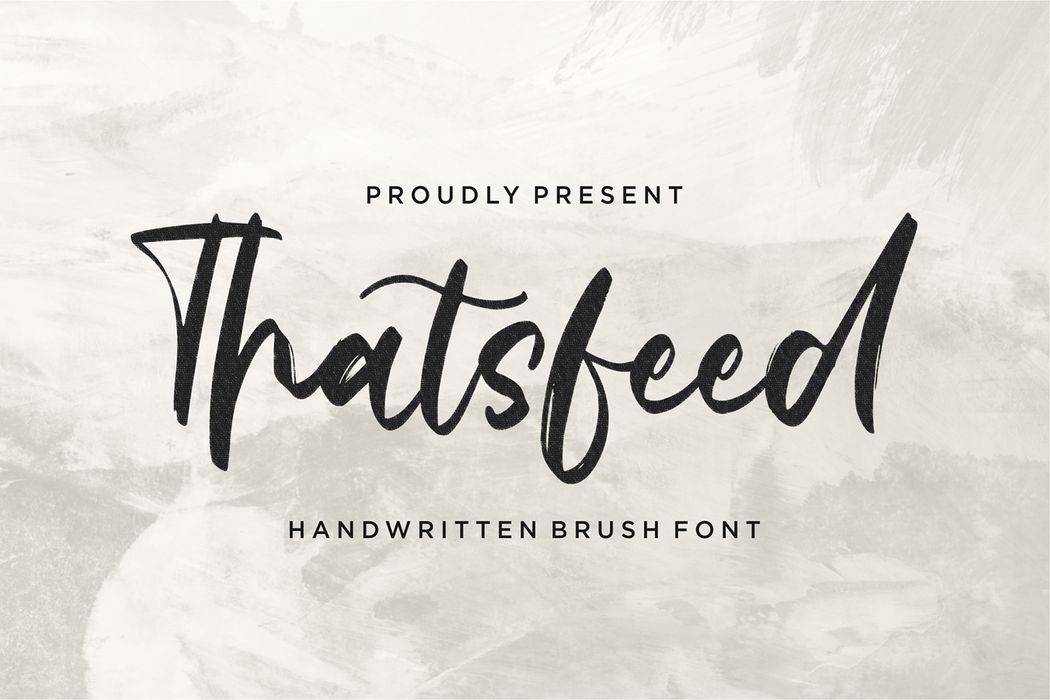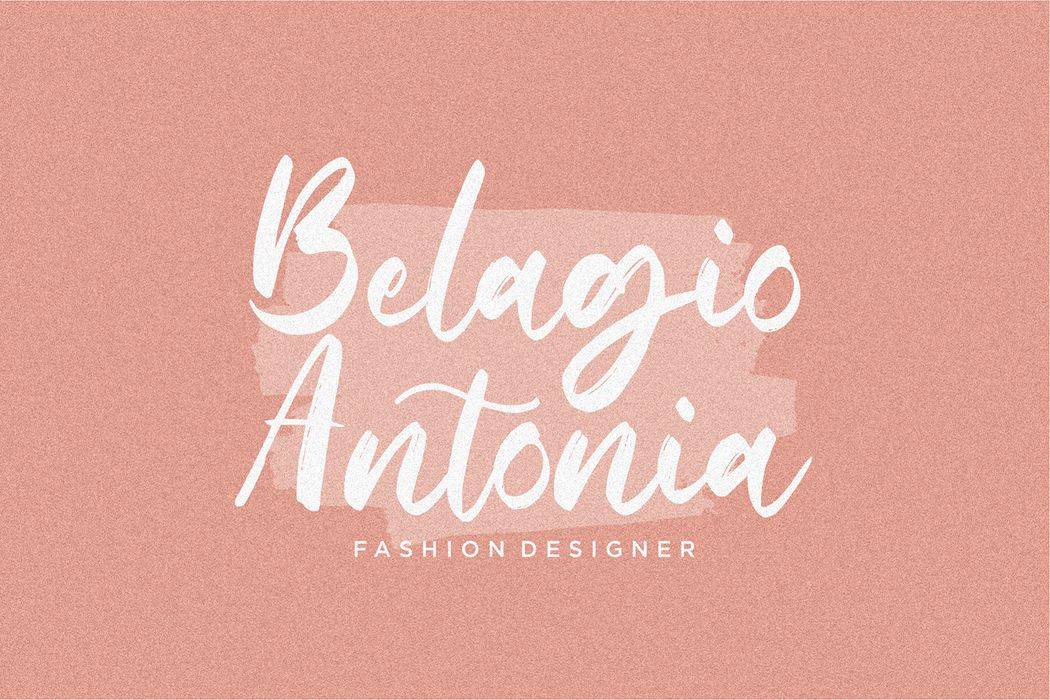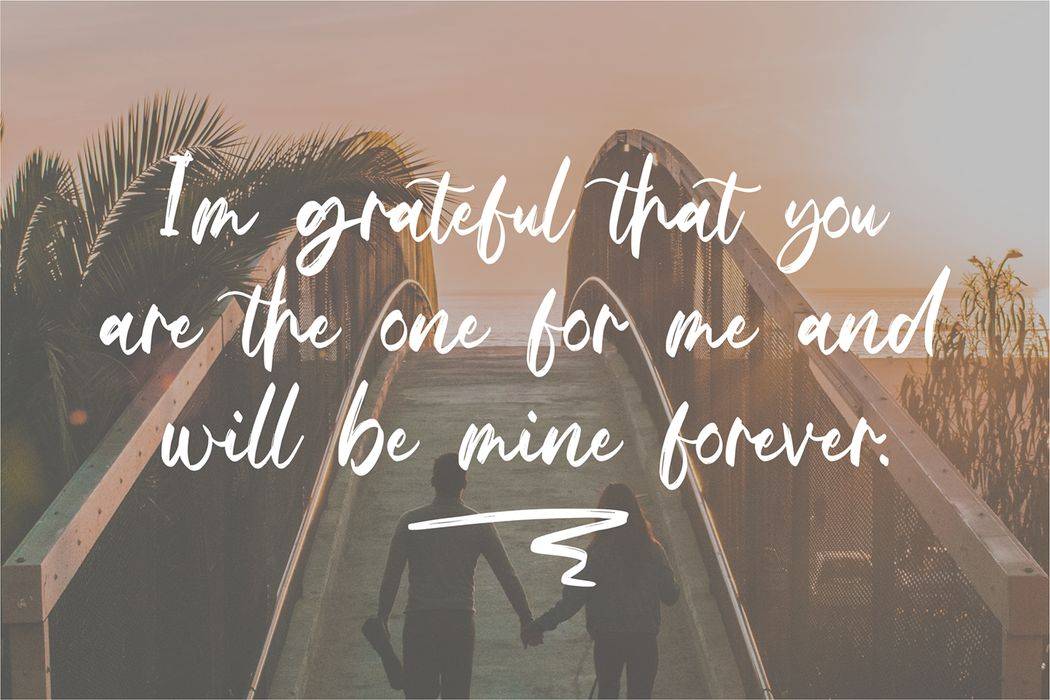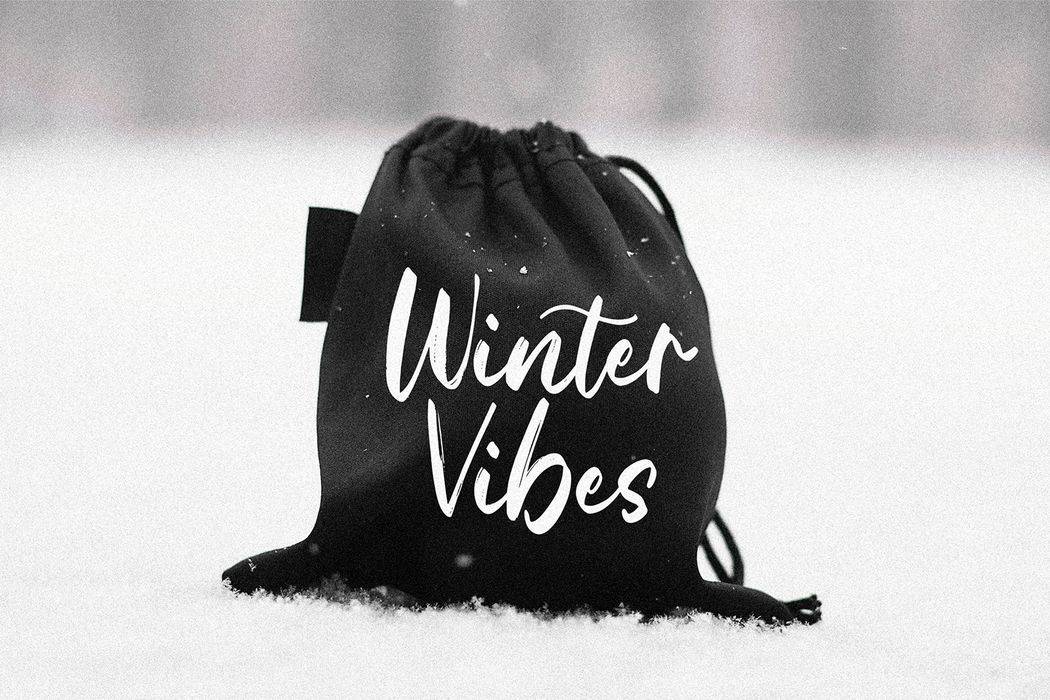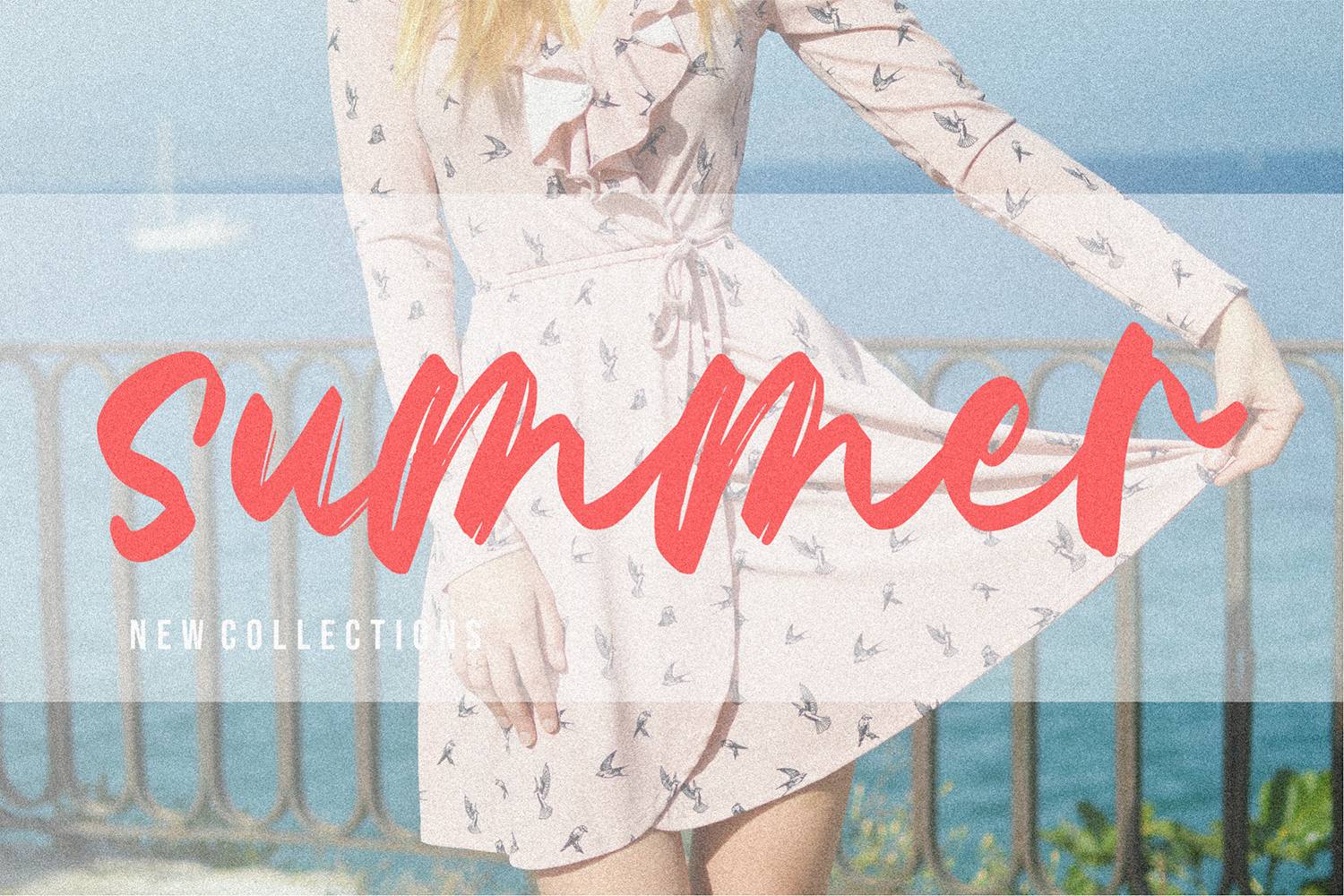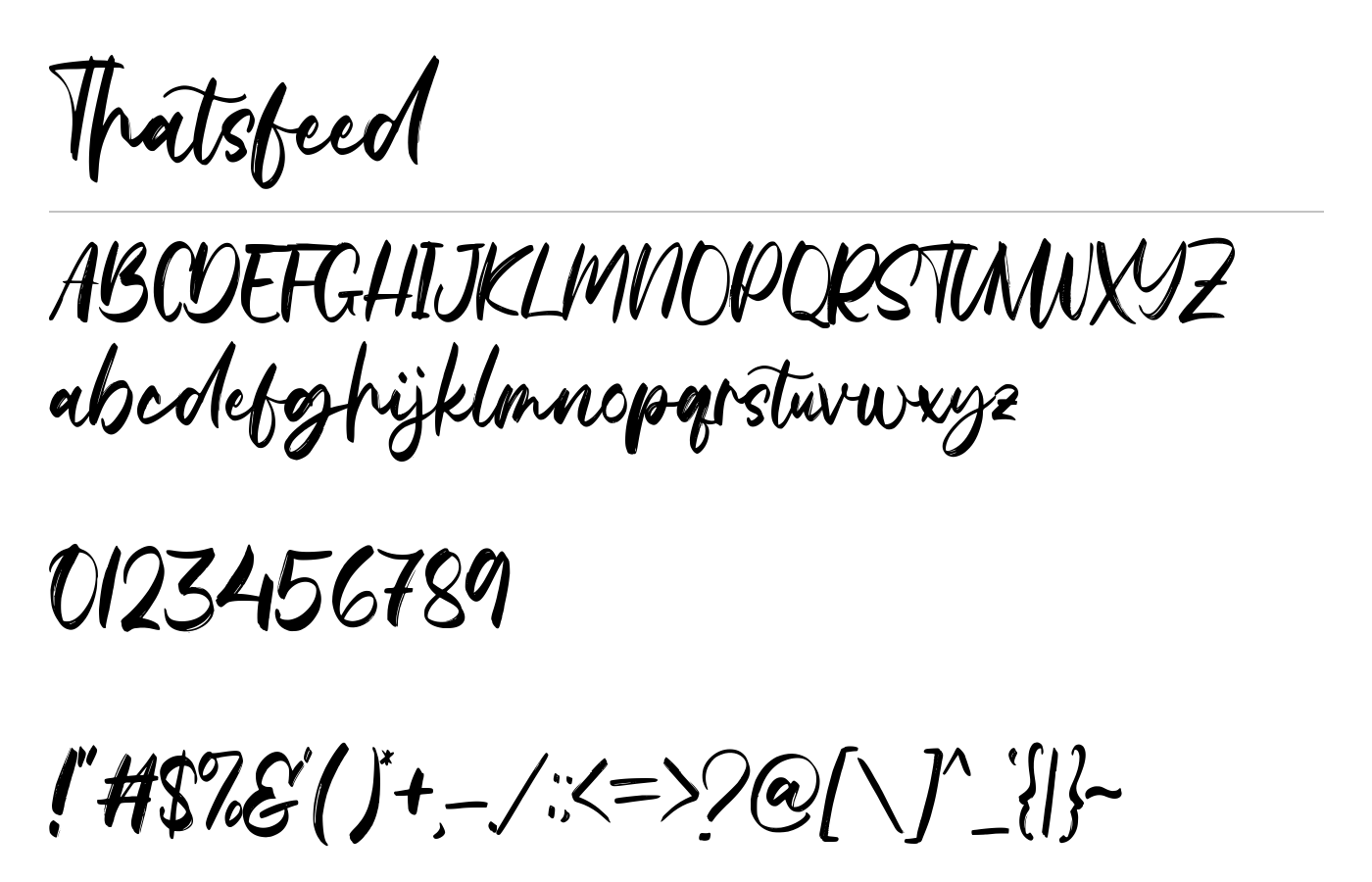
Thatsfeed is a lively and expressive script font with a hand-painted look, featuring bold, irregular strokes that create a dynamic and personal feel. Its slightly condensed letterforms and natural flow make it perfect for creative branding, social media headers, and packaging where a casual yet impactful style is desired. This font works wonderfully for adding a touch of artistic flair and energetic personality to any design project.
Thatsfeed Font